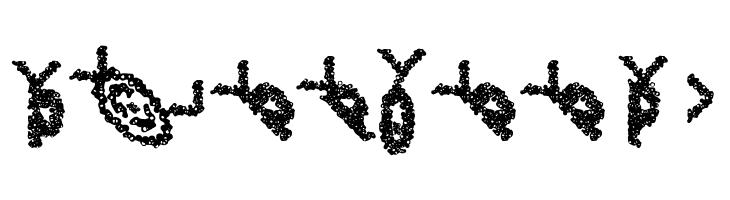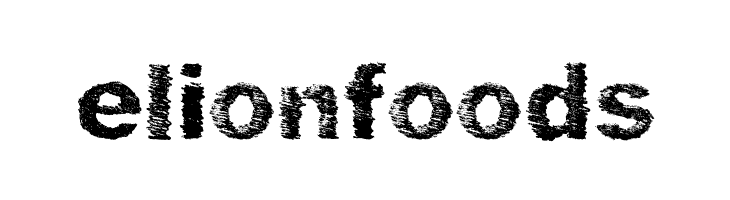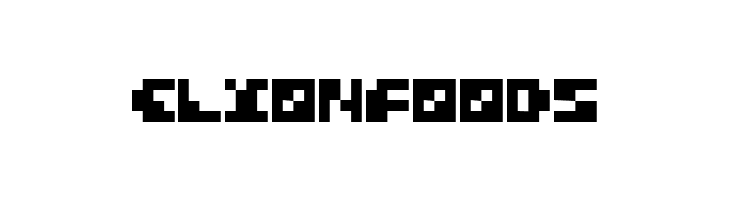
A bold, futuristic font with angular, geometric shapes.
A decorative and artistic font with intricate, abstract shapes.
An ornate and decorative font with a calligraphic style.
A bold, sketch-style font with textured, hand-drawn strokes.
A bold, pixelated font with a retro digital style.
A mosaic-patterned font with characters formed by small dots, offering a textured and artistic look.
A whimsical and decorative font with playful curls and swirls.
A decorative font with ornate uppercase and bold lowercase characters.
A rugged, textured font with a natural, handcrafted appearance.
A decorative, calligraphic-style font with elegant curves and dynamic strokes.